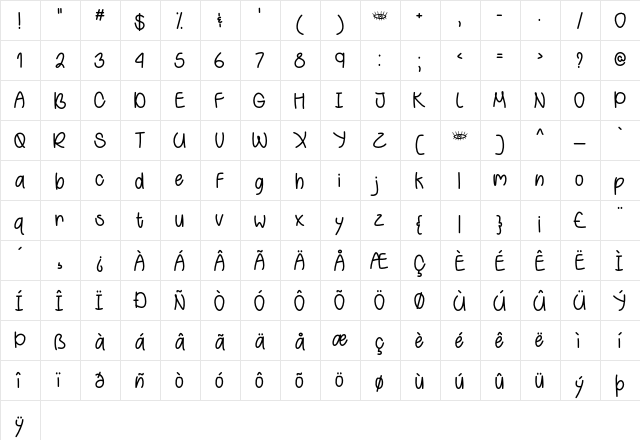
Behind Green Eyes Regular
Design Context for Behind Green Eyes Typeface
Behind Green Eyes takes a measured approach to typography — its balanced proportions and neutral character make it a reliable workhorse for both digital and print work.